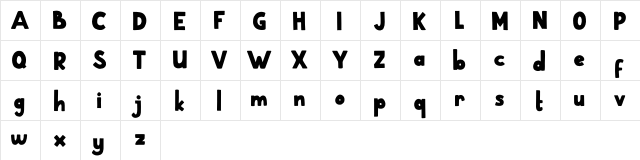
School Holic 3 Font Preview
School Holic 3 School Holic 3
School Holic 3 Font Details
| Style | School Holic 3 |
| Designer | Orenari |
Design Context for School Holic 3 Typeface
School Holic 3 takes a measured approach to typography — its balanced proportions and neutral character make it a reliable workhorse for both digital and print work.